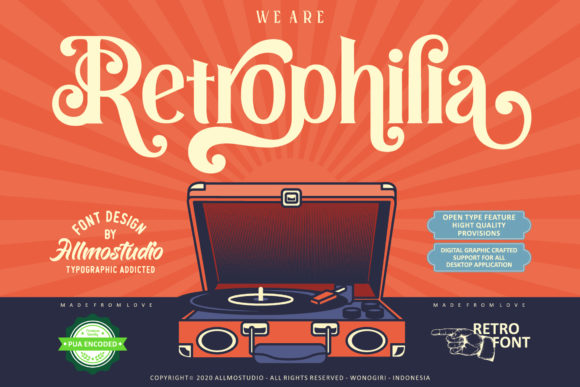
Journey through time with Retrophilia Font, the captivating display font that oozes vintage charm and playful nostalgia. Crafted by AllmoStudio, this font family embodies the spirit of bygone eras, adding an irresistible retro touch to any design project.
Step into a world where old-school elegance meets modern aesthetics. Retrophilia's carefully crafted characters exude a timeless appeal, evoking memories of simpler times. Its playful spirit adds a touch of whimsy and charm, making it the perfect choice for projects that aim to capture the essence of days gone by.
Unleash your creativity and explore endless possibilities with Retrophilia's diverse styles for lettering. From eye-catching headlines to captivating logos, this font family offers a range of options to suit your unique vision. Personalize your designs with distinct letterforms that add a touch of individuality and sophistication.
Bring your projects to life with Retrophilia's ability to evoke emotions and create lasting impressions. Its vintage flair adds a layer of depth and intrigue, making your designs stand out from the crowd. Whether you're designing posters, invitations, social media graphics, or anything in between, Retrophilia will add an unforgettable touch of retro magic.
Elevate your designs to new heights with Retrophilia, the display font that captures the essence of nostalgia and timeless beauty. With its diverse styles for lettering, emotional impact, and ability to create unforgettable impressions, this font family is the perfect choice for designers seeking a touch of vintage charm and sophistication. Download Retrophilia today and embark on a creative journey through time!